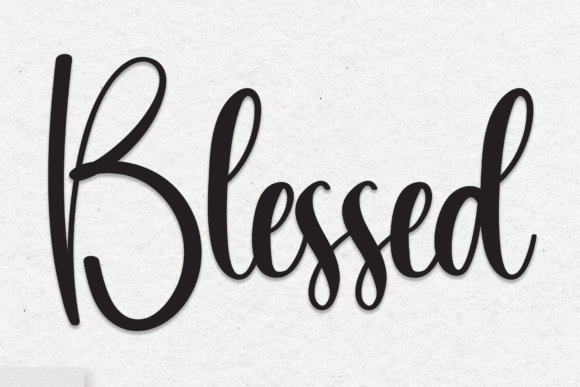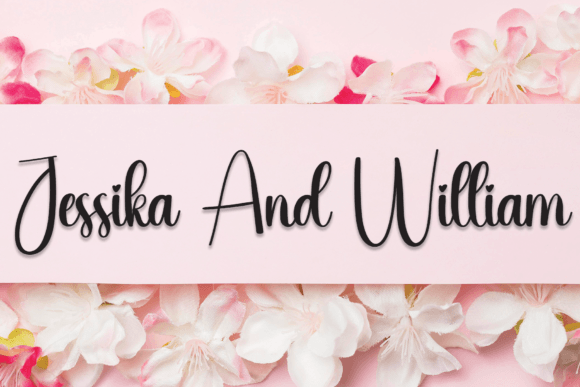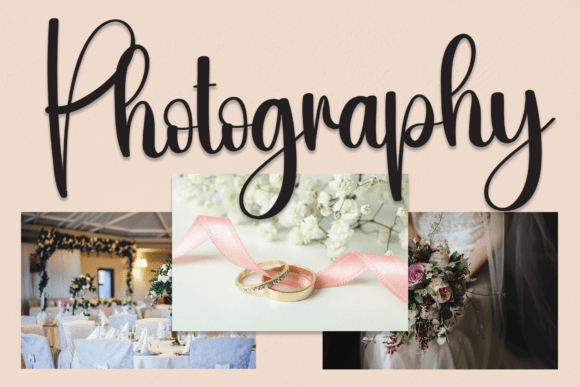
Add elegance and charm with the Blessed font. This font features the latest handwritten style letters that are ideal for various design projects. Whether you are creating wedding invitations or social media logos, this font brings a personalized touch.
The Blessed font is also great for advertisements, product packaging, and product designs. It fits beautifully on labels, photography, and watermarks. Furthermore, it works well for stationery and invitations.
Each character is carefully crafted with flowing and stylish strokes. This makes your designs look sophisticated and handcrafted. The font balances artistic style with readability. It is perfect for headlines, logos, quotes, and decorative text.
This font offers excellent readability. It works well in both large and small sizes. Whether you want bold titles or subtle details, the Blessed font adjusts perfectly.
Using this font will help your projects stand out. It adds a warm and elegant vibe. If you want your designs to look professional yet personal, the Blessed font is a great choice.
In conclusion, the Blessed font is versatile. From wedding invitations to social media posts, it adds warmth and elegance. Download it today to enhance your creative projects with a beautiful handwritten style.